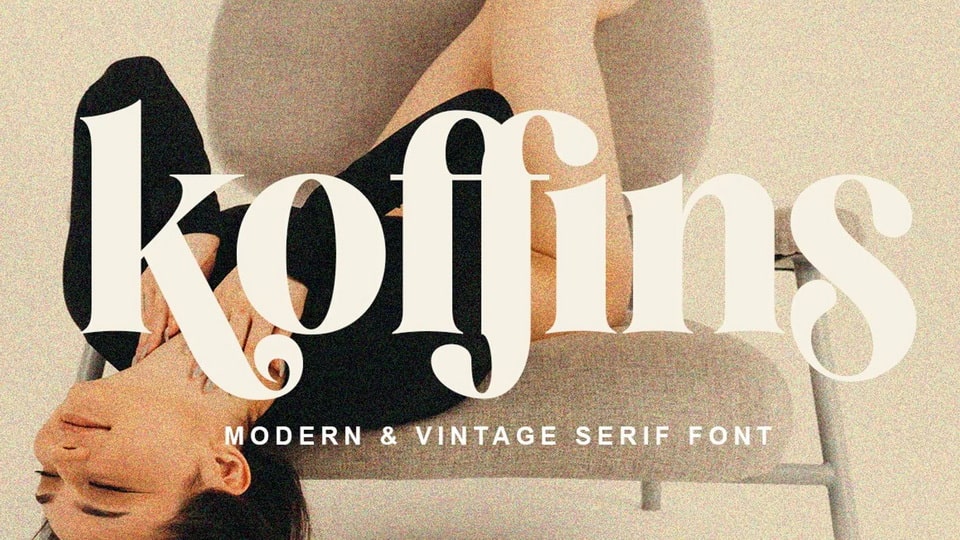
Download Koffins font, a bold vintage-style serif typeface with solid confidence. Koffins is a high contrast font, perfect for feminine logo signs, fashion and editorial design heads, branding projects.